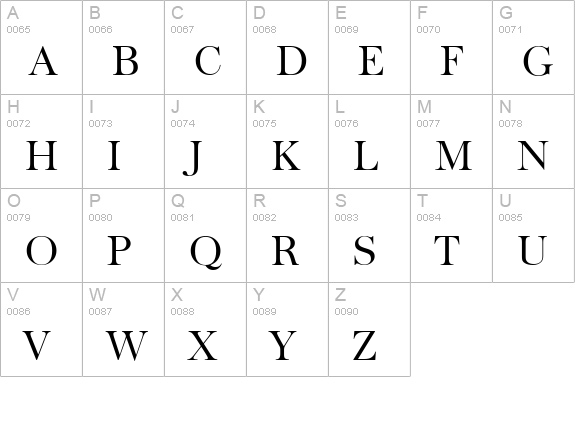
BaskervilleSerial-Light-Regular is a refined, elegant variant in the BaskervilleSerial typeface family \xE2\x80\x94 well suited to elegant body text, refined sub-headings, and luxury branding.
BaskervilleSerial-Light-Regular is a classic and elegant font that exudes sophistication and timeless appeal. With its clean lines and graceful curves, this font is perfect for adding a touch of refinement to any project. Whether you're designing a wedding invitation, crafting a logo, or creating a professional document, BaskervilleSerial-Light-Regular is sure to elevate your work to the next level. The best part? This exquisite font is available for free download at FontsMarket.com. Now you can enjoy the beauty and versatility of BaskervilleSerial-Light-Regular without breaking the bank. Don't miss out on this opportunity to enhance your designs with this stunning typeface. Download it today and let your creativity shine!